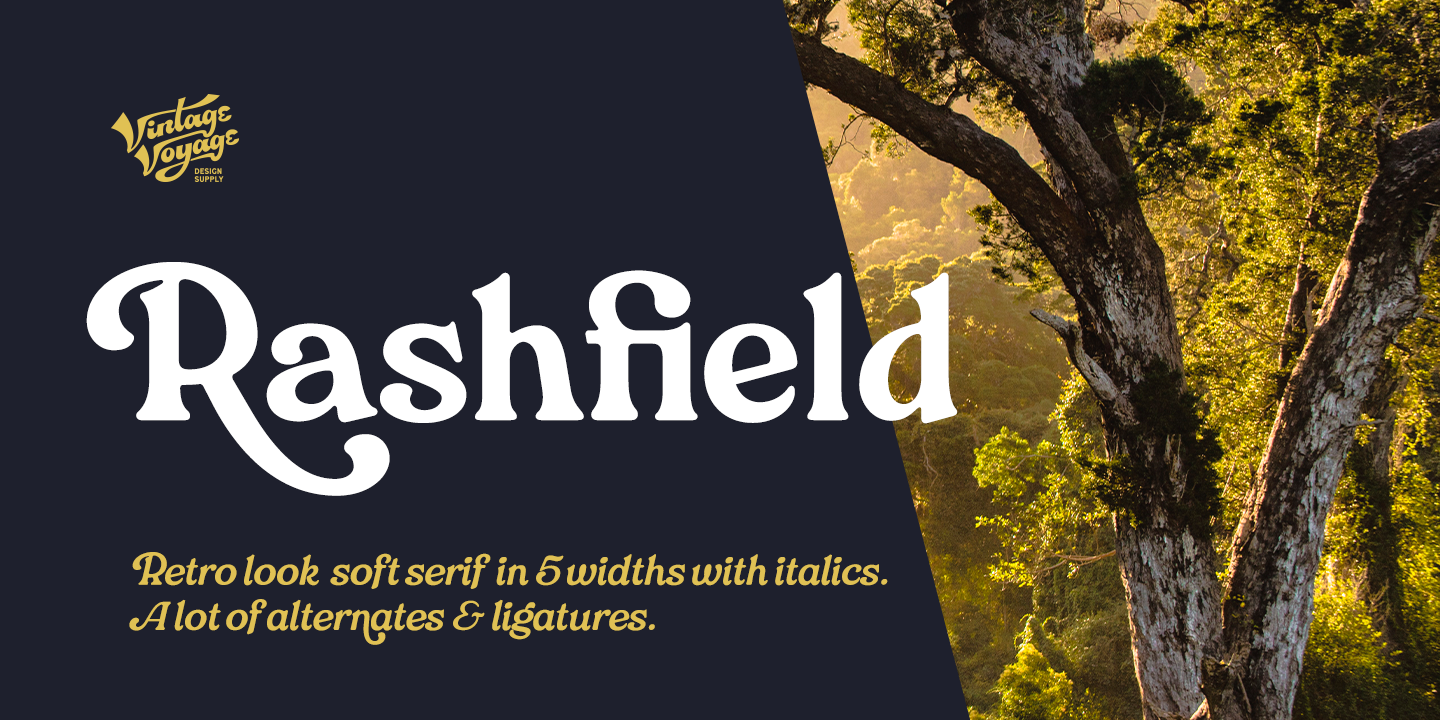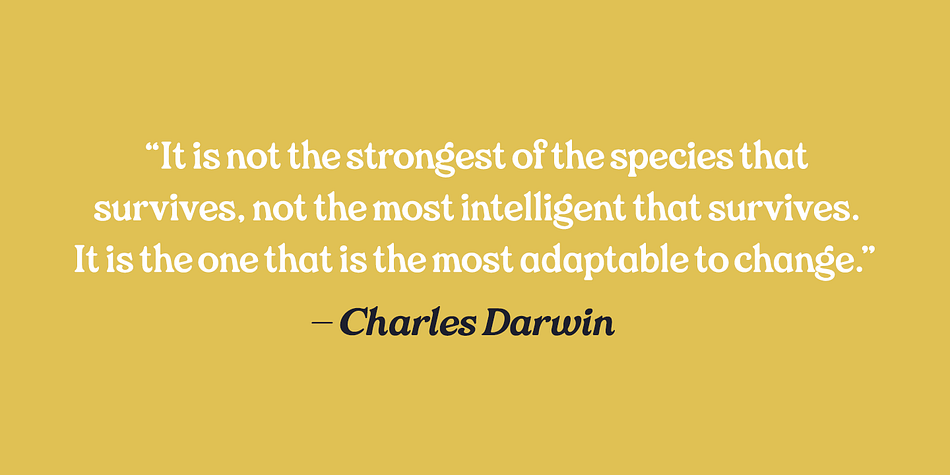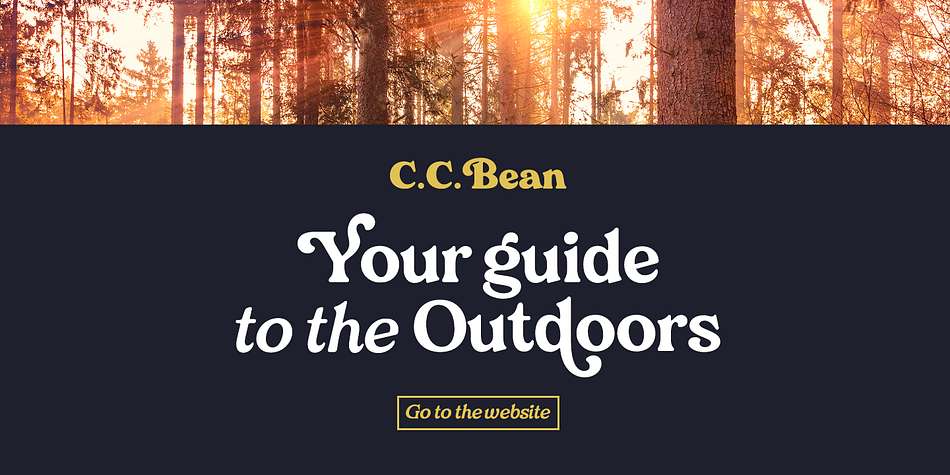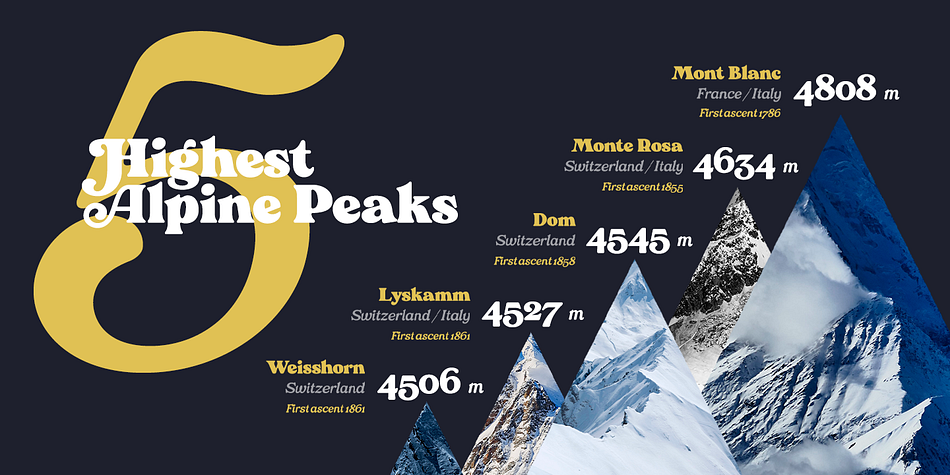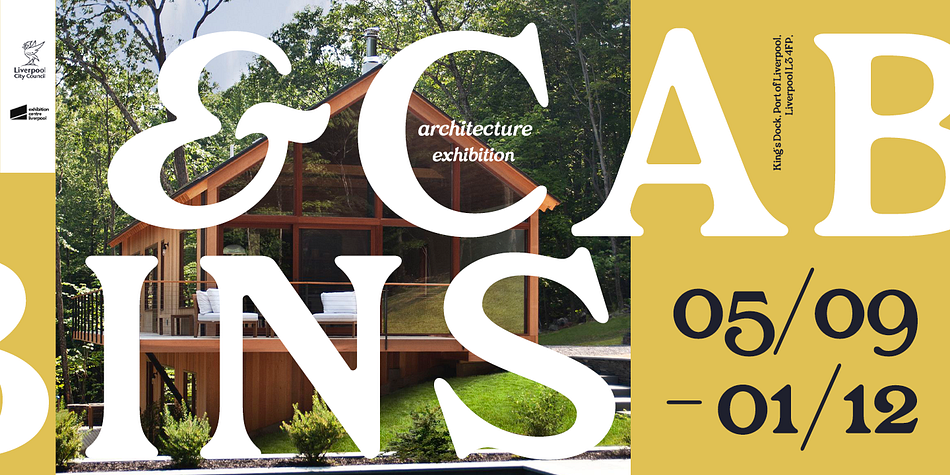
Rashfield
Designed by Pavel Korzhenko, Rashfield is a display serif, retro and sans serif font family. This typeface has ten styles and was published by Vintage Voyage Design.
Rashfield is a soft serif type family in 5 weights and italics. Inspired by classical Windsor mood in Woody Allen movie titles, with outward bent h, m, n and a lot of modern alternates. Softly character with a hint of retro feeling. Rashfield has a lots of stylistic alternates that makes it very playful in various uses like logos, prints, branding, web design, packaging and more. Use it to create short powerful phrases and headlines and also use it in longer text like paragraphs and block texts. Perfect for modern projects with a little retro mood feel.